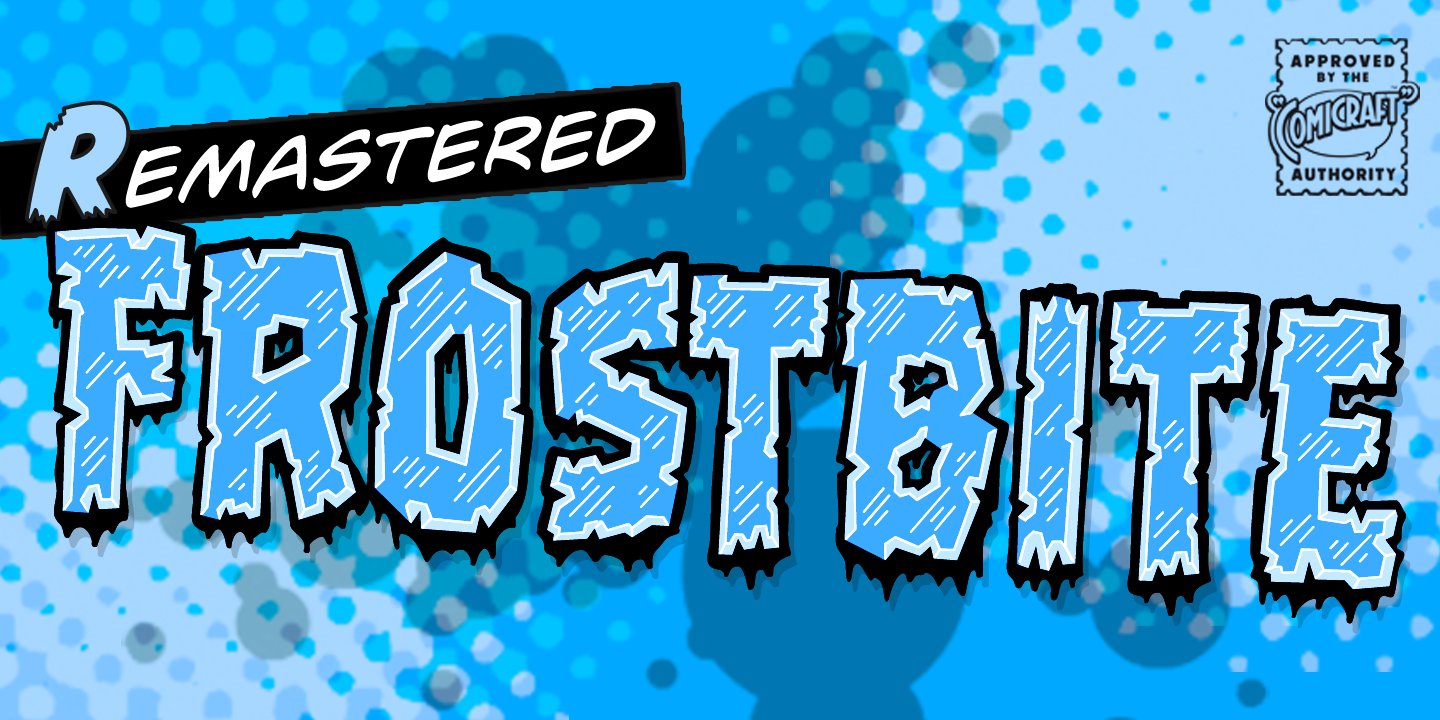
Frostbite Font Free Download is a sharp, icy display typeface that captures the chill and thrill of winter’s bite. Perfect for seasonal designs, this font blends dramatic edges with a frosted aesthetic to make your text stand out in the coldest way possible. Please note that you must purchase this font for commercial use. It is available for free download for personal and testing purposes only.
You can use Frostbite Font in winter event posters, Christmas cards, extreme sports branding, holiday sales ads, snow-themed YouTube thumbnails, ski resort signage, and any project that needs to scream “cold, bold, and unforgettable.” It adds instant drama and winter magic to your visuals.
What makes Frostbite so exciting is its jagged edges and frozen texture — every character looks like it was carved from ice, evoking the energy of snowstorms, glaciers, and arctic adventures. It's bold, playful, and full of seasonal personality.
The Frostbite Font family includes Frostbite Regular, Frostbite Outline, and Frostbite Snowcap, giving you versatile stylistic options to freeze your audience’s attention in style.